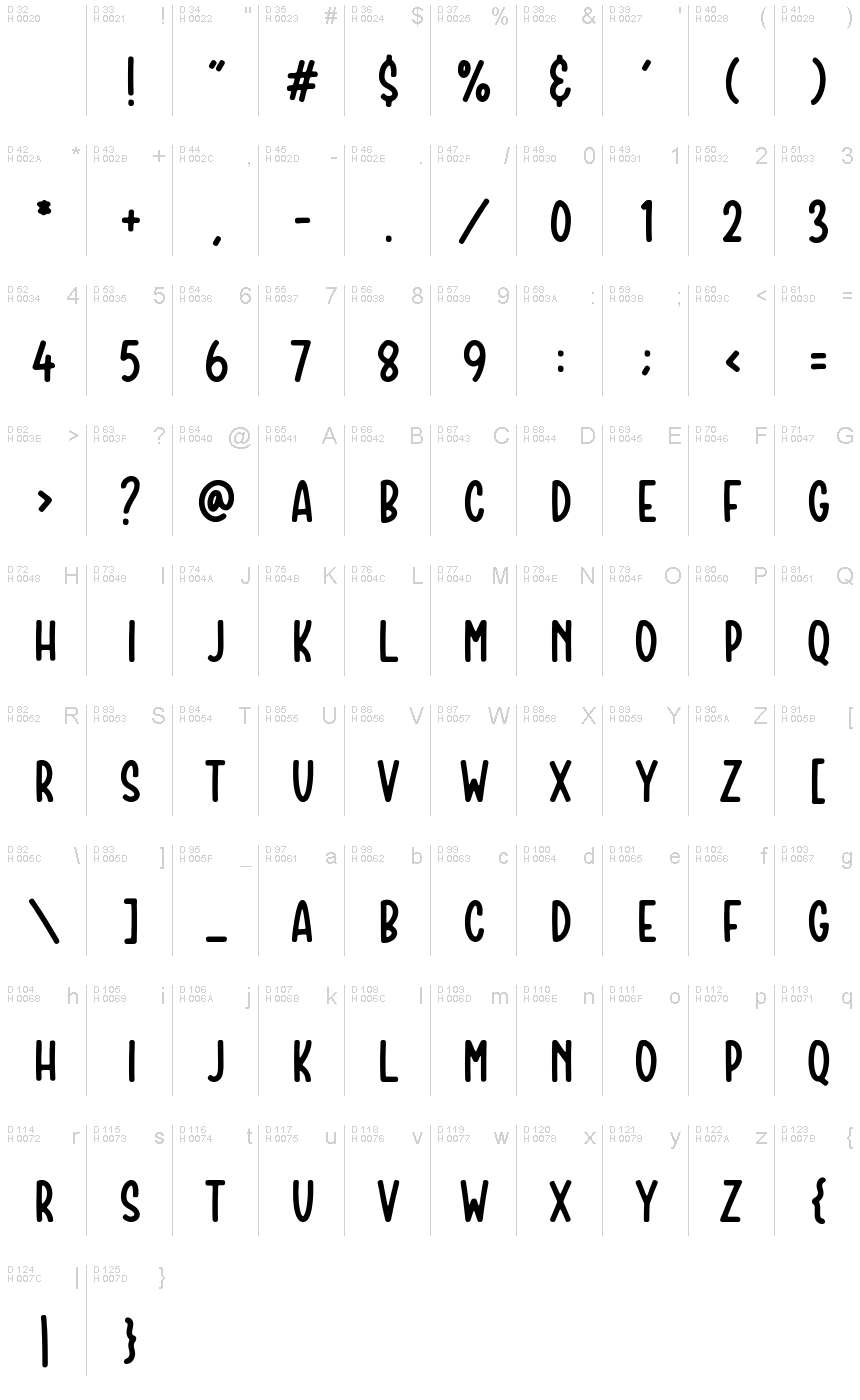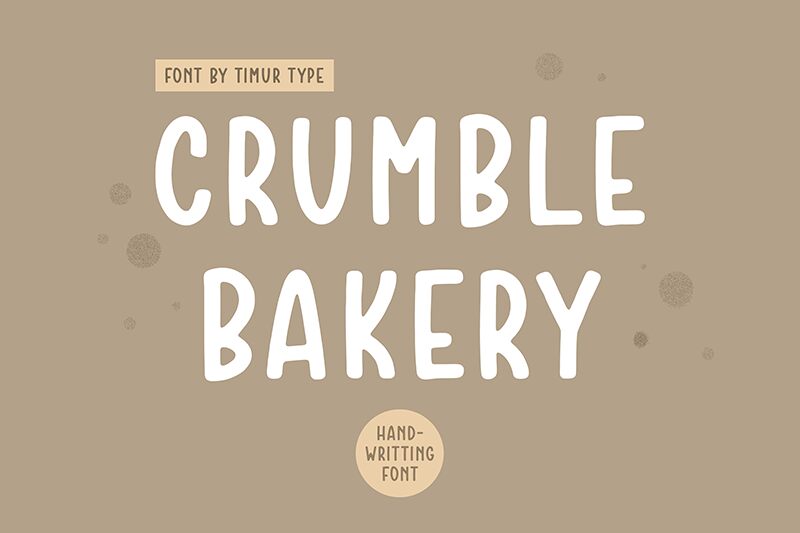
Crumble Bakery
Crumble Bakery springs from the creative mind of Timur Type, offering a whimsical touch with its handwritten style that echoes the warmth and charm of a cozy bakery. Its condensed form adds to its quirky character, reminiscent of delightful notes scribbled in the margins of a recipe book. This font's playful irregularities and flowing lines give it a personal touch, making it perfect for projects that require an intimate, handcrafted feel.
Ideal for branding artisanal products or designing unique invitations, Crumble Bakery could also lend an informal yet captivating flair to café menus or food blogs. Its distinct personality ensures that any message set in this typeface delivers a friendly and inviting tone.